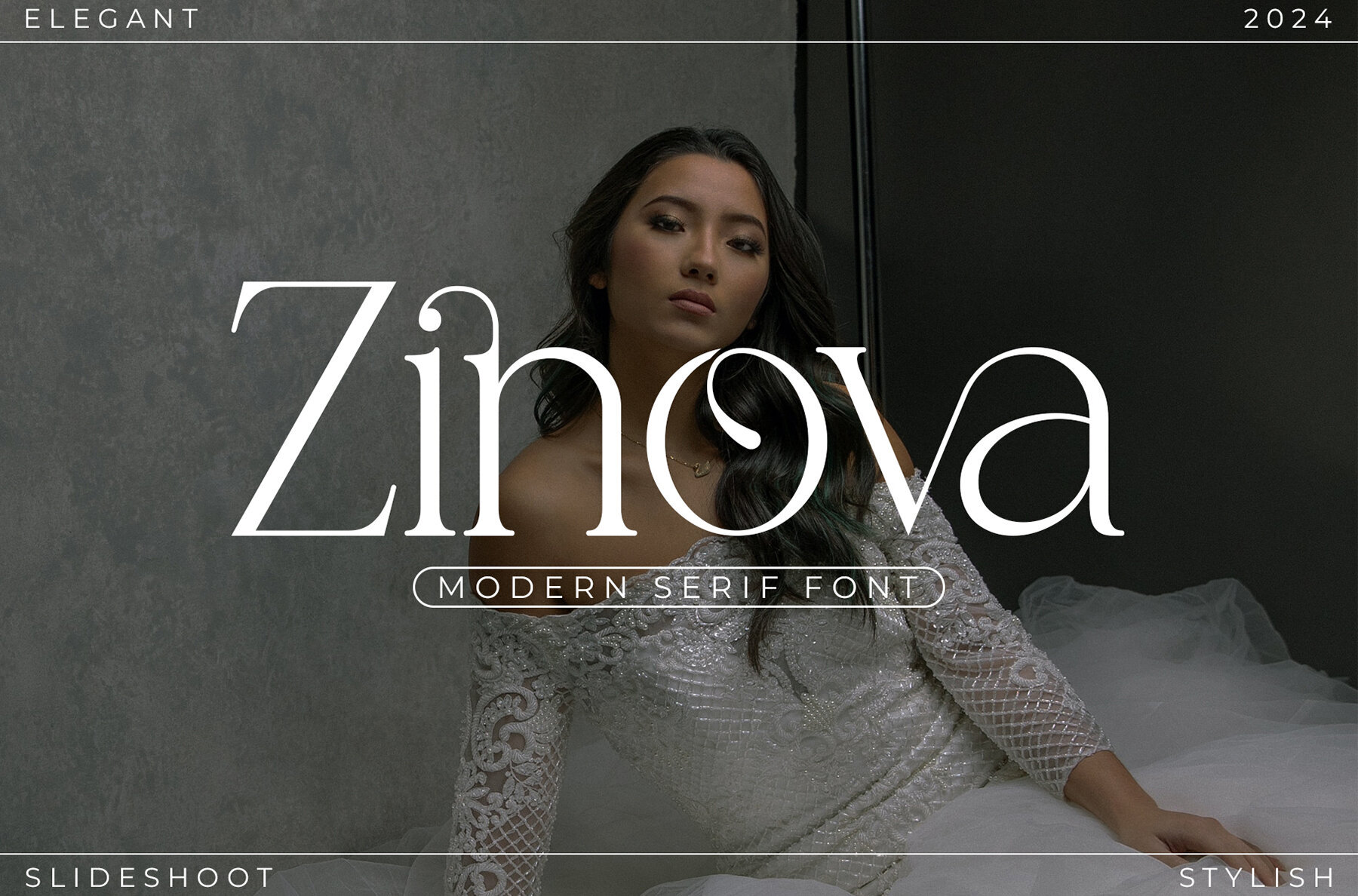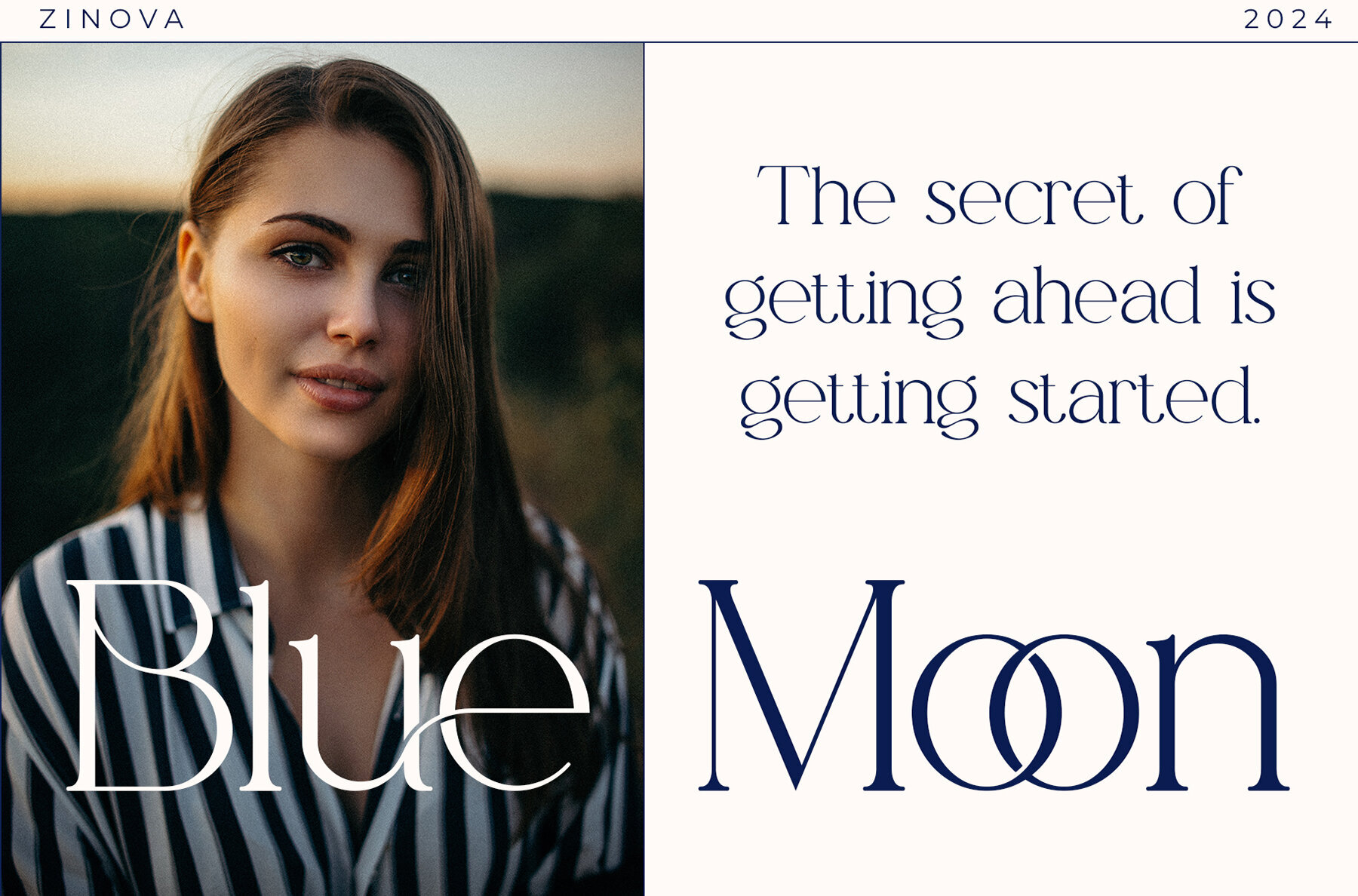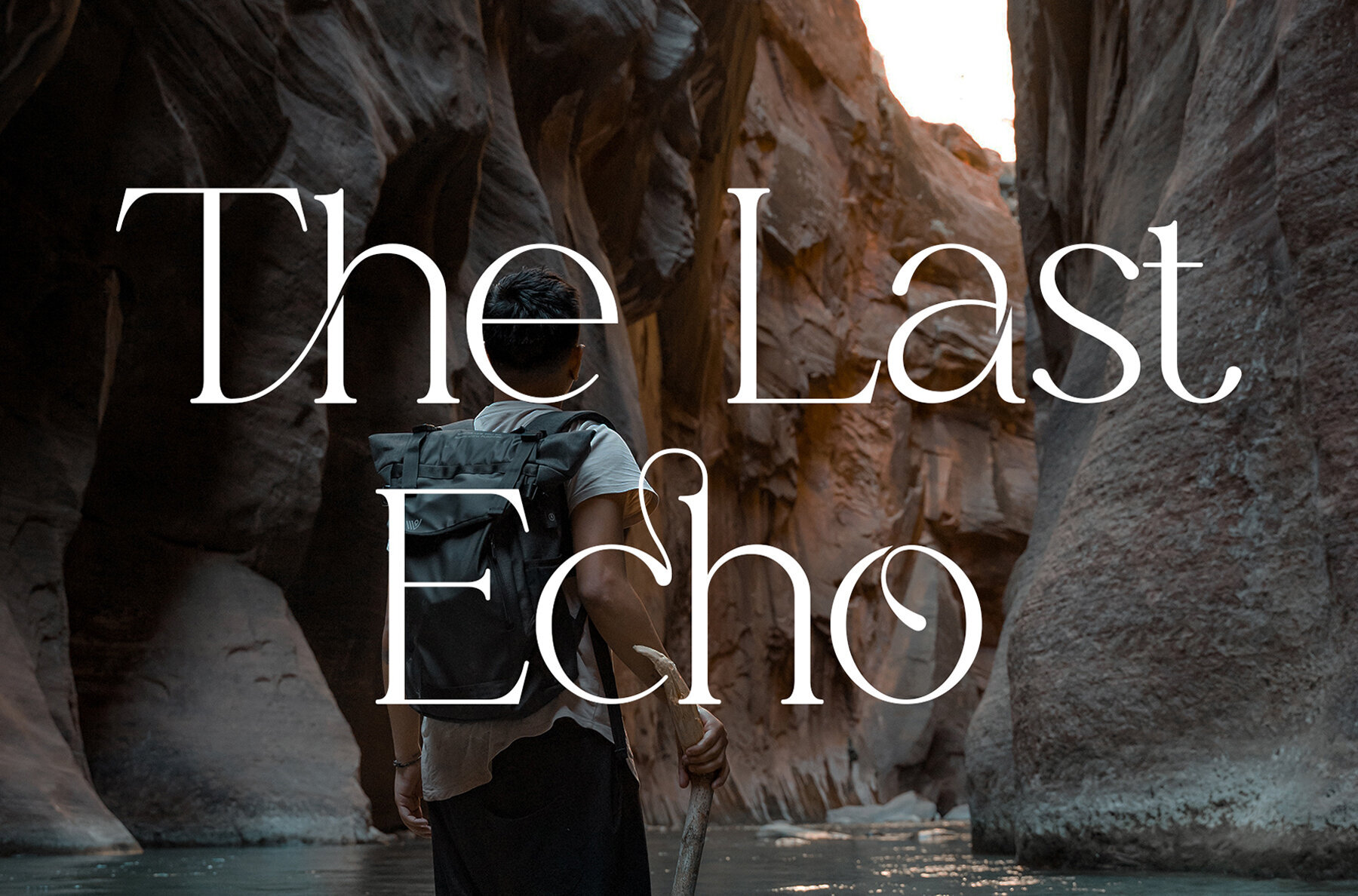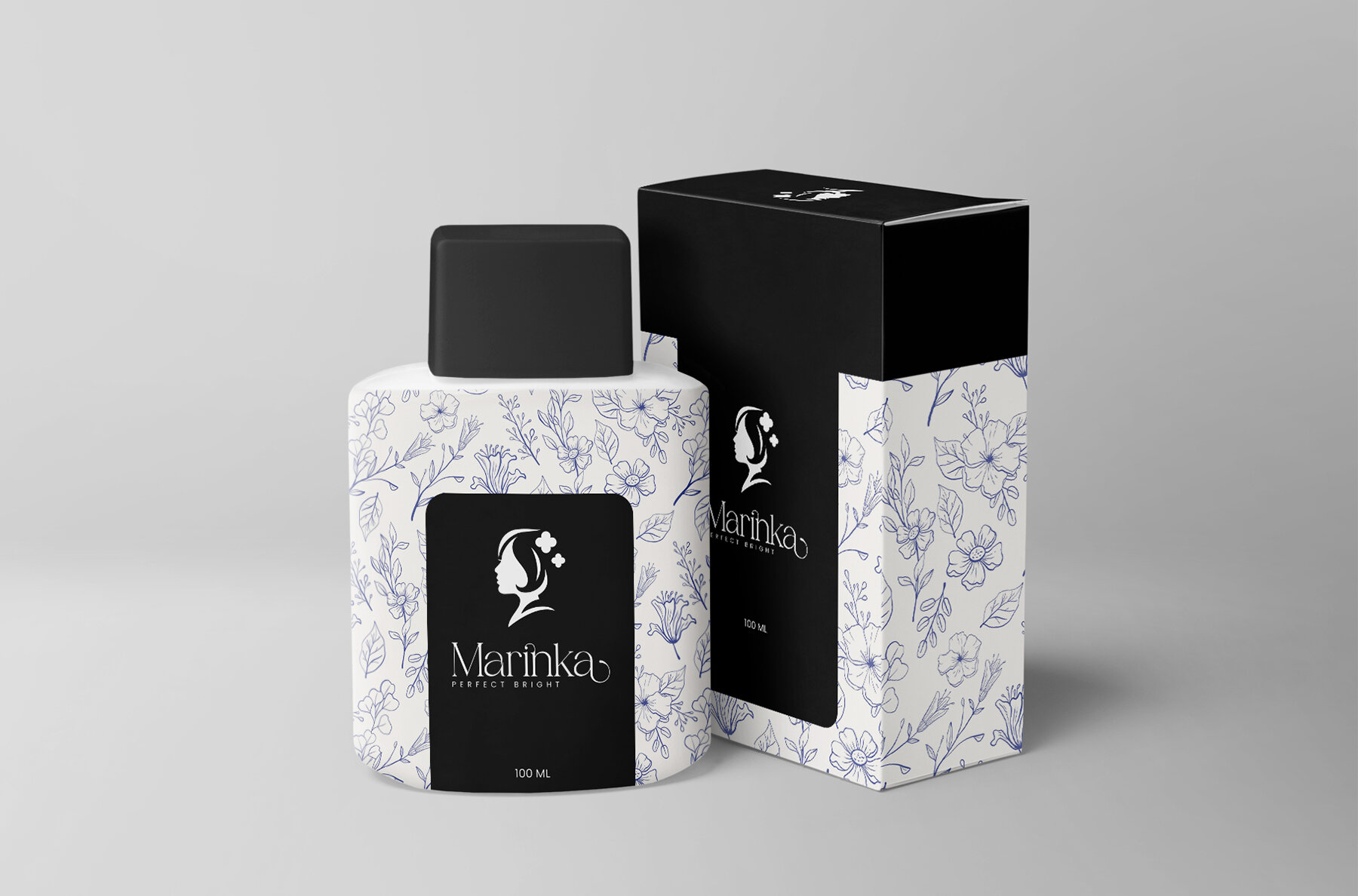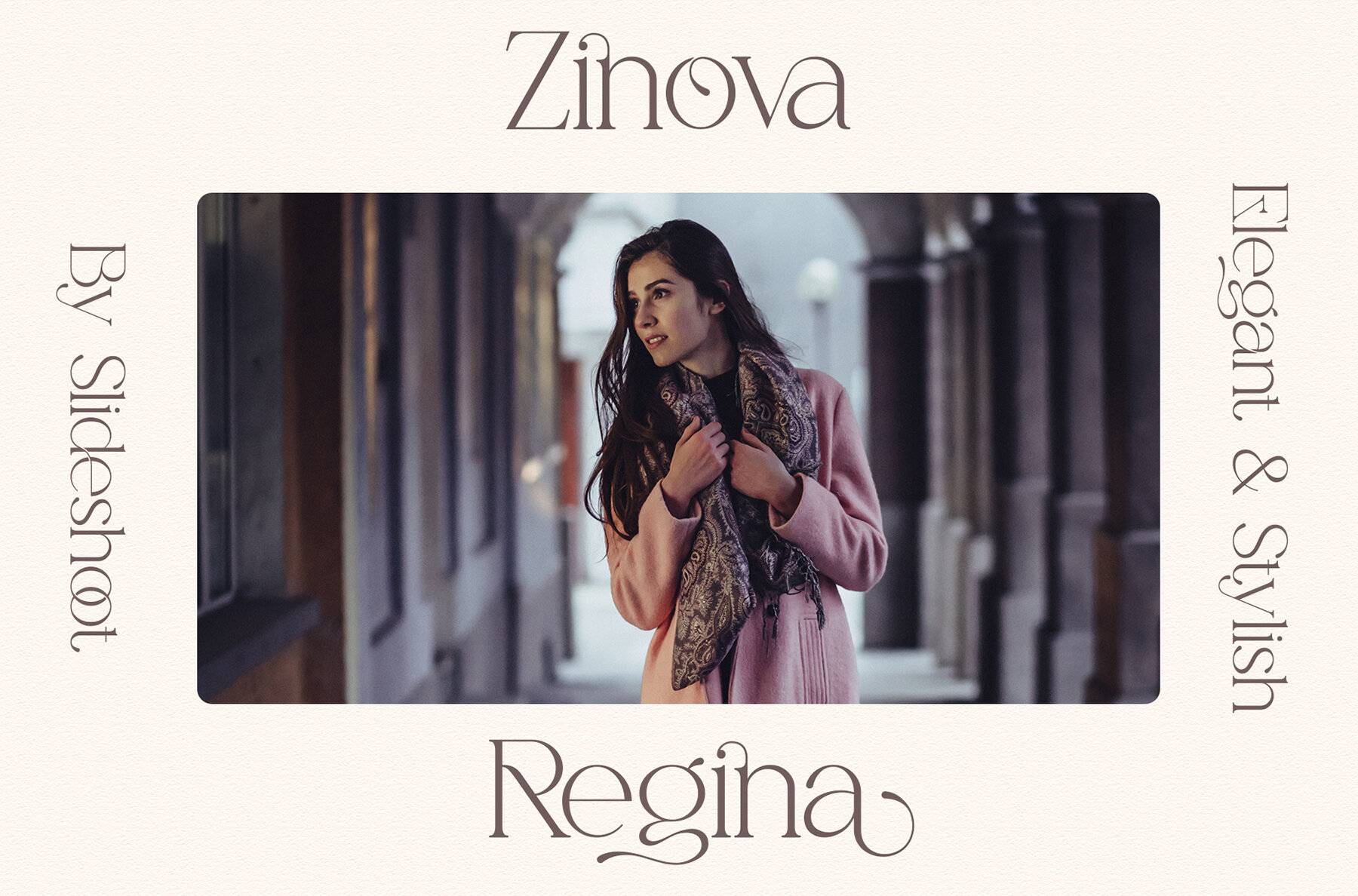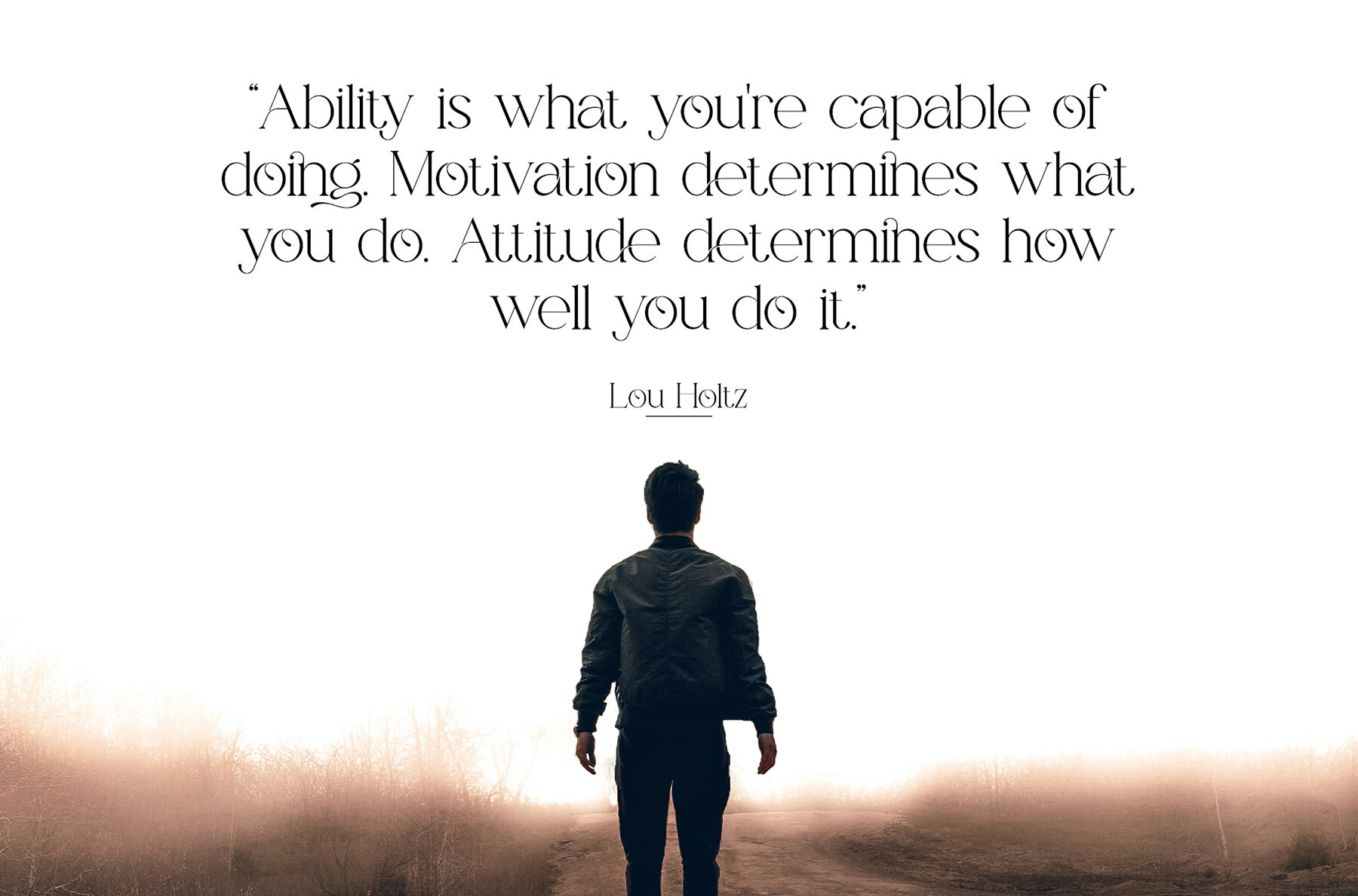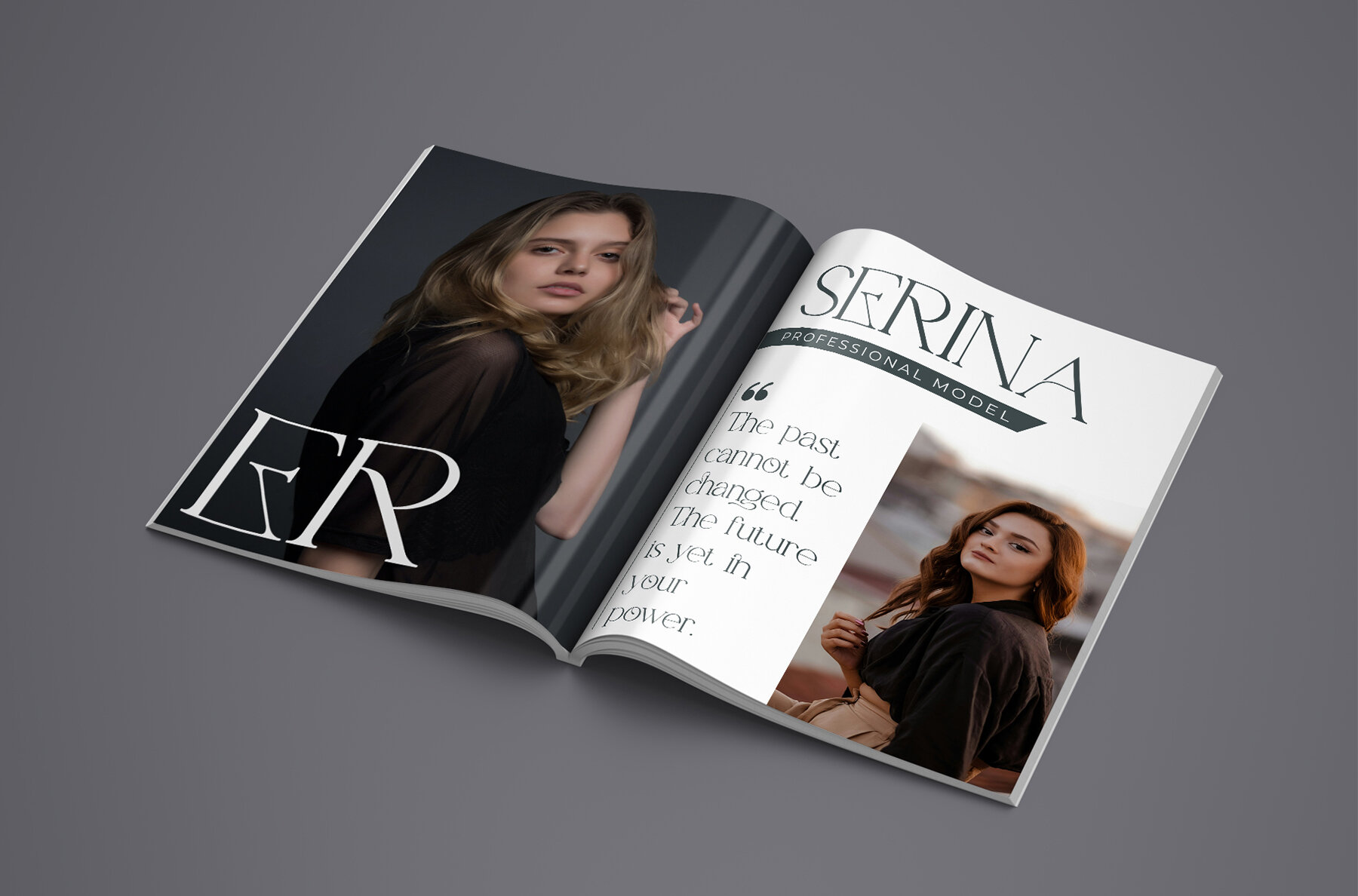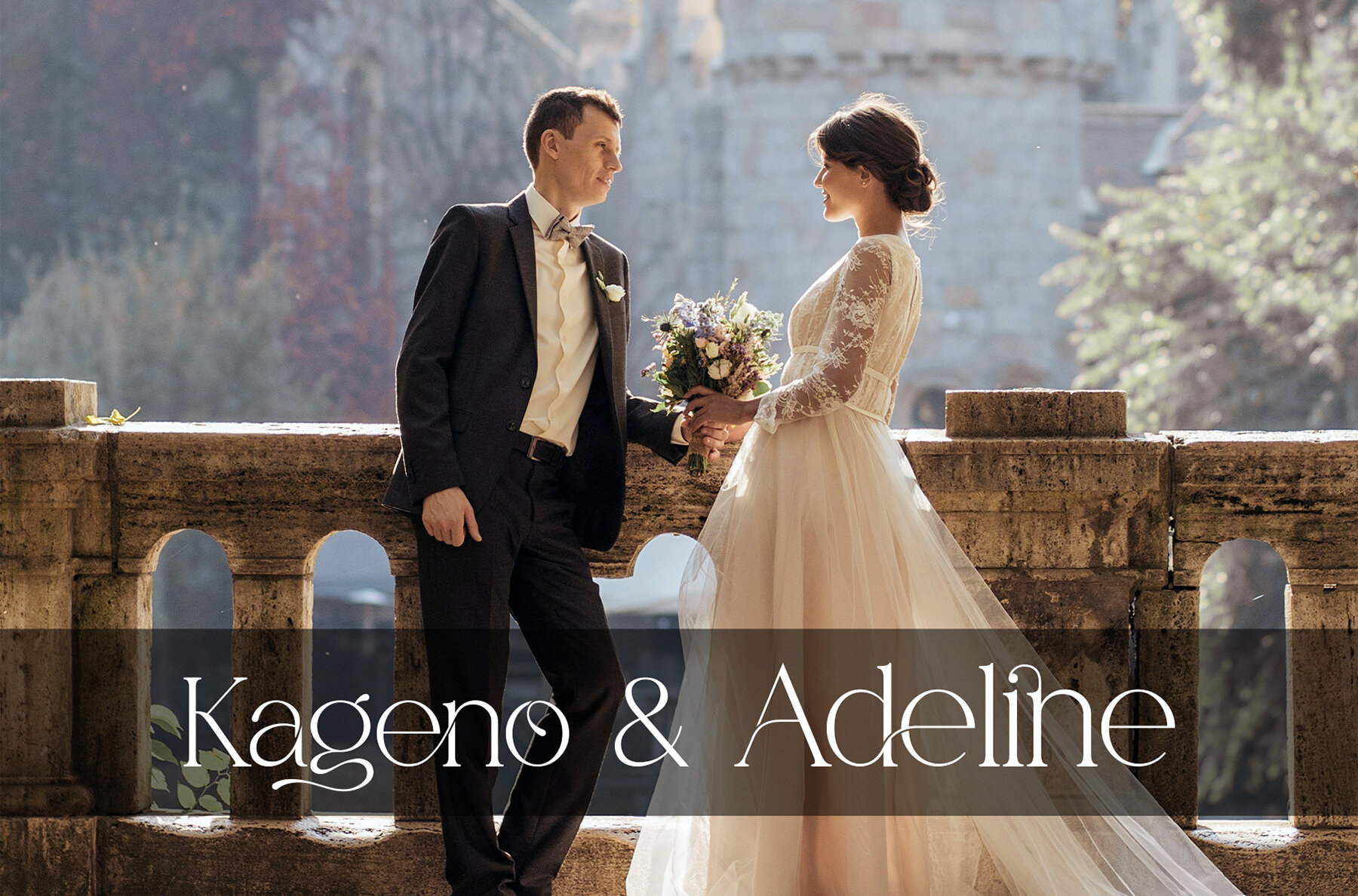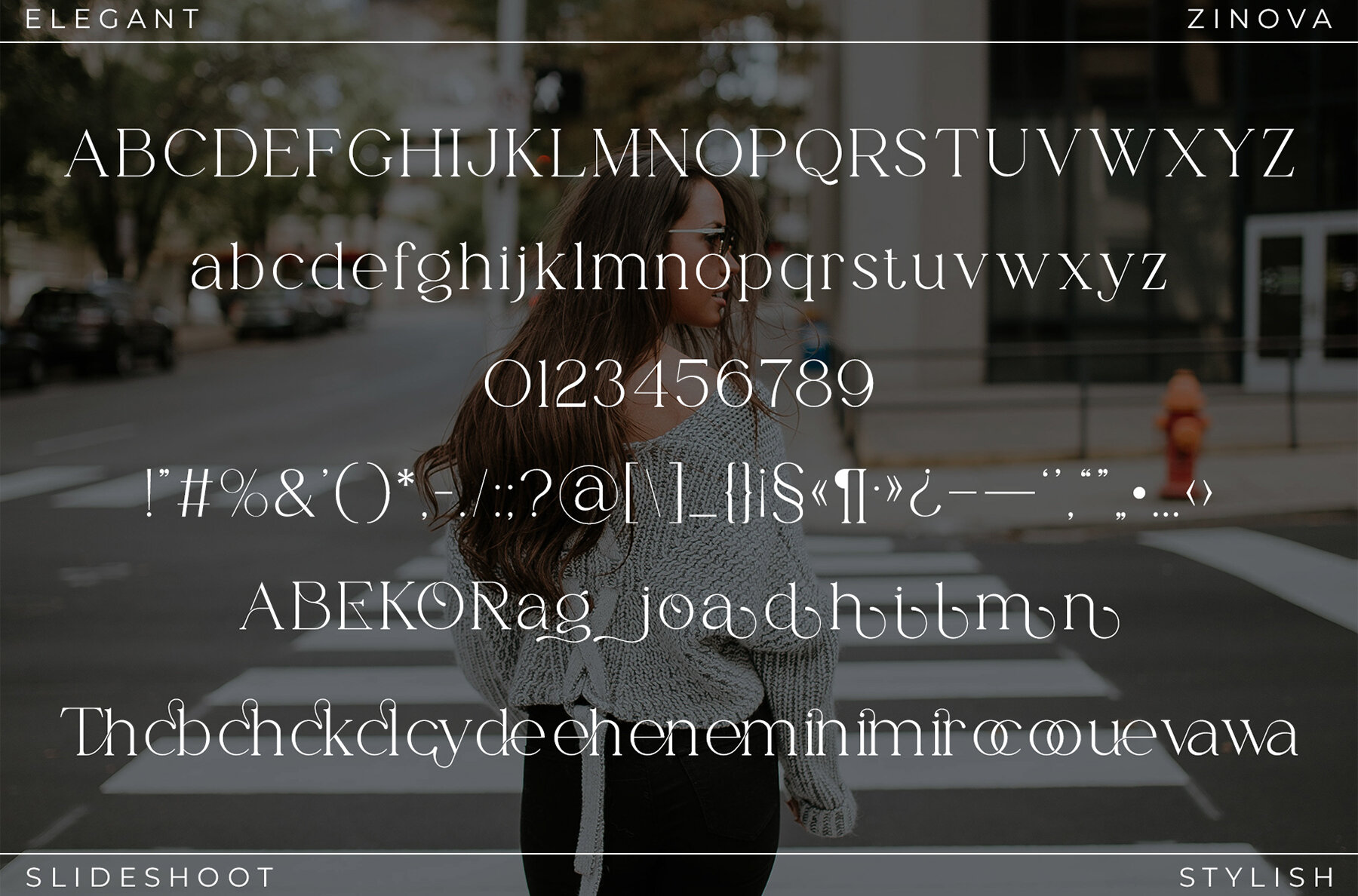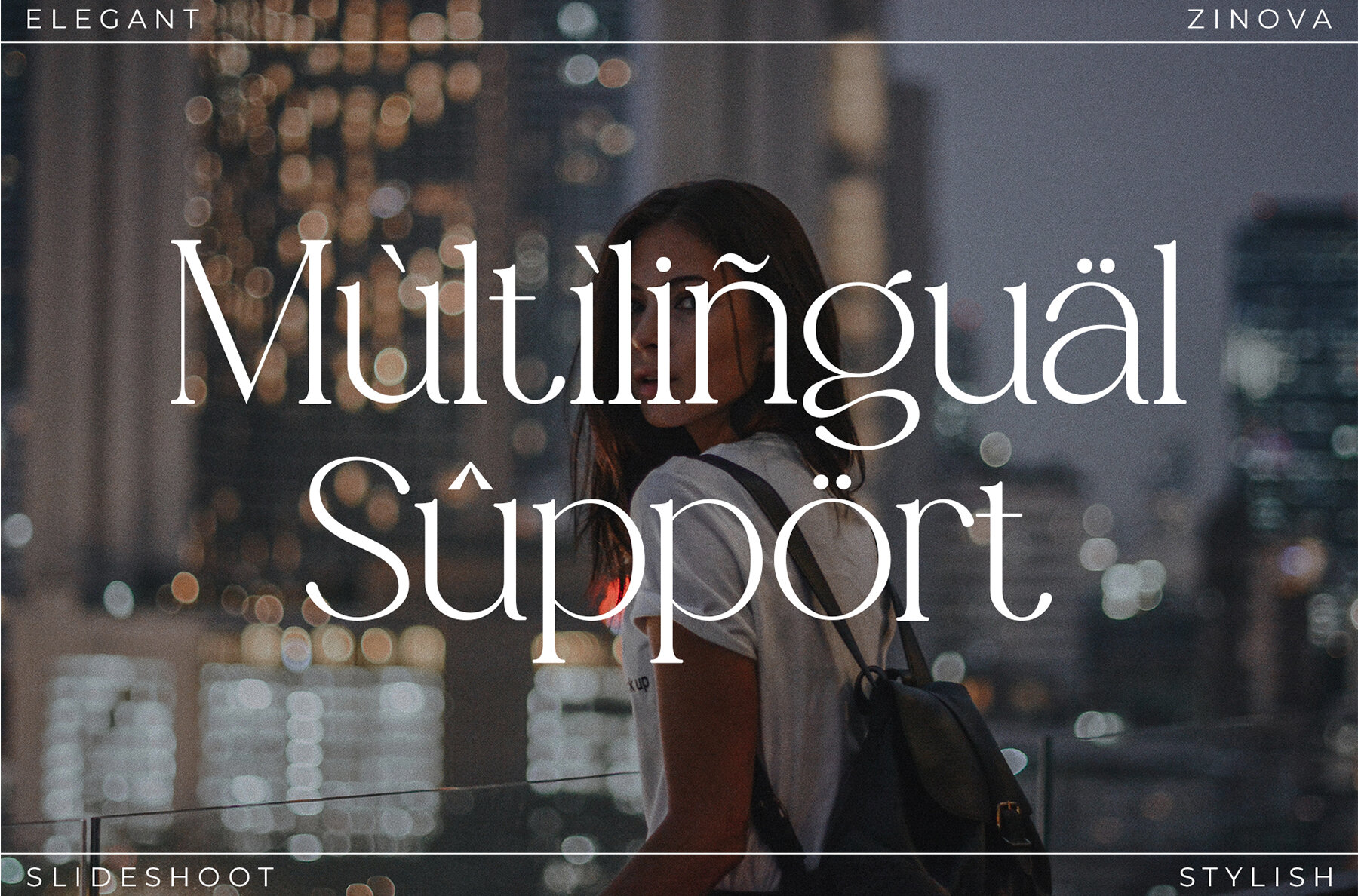
Zinova Font
Zinova Serif is a balanced and smooth serif font known for its elegance and style. It features beautiful character design, making it a suitable choice for various applications such as invitation cards, company logos, movie titles, business cards, book titles, brand names, and more. This sophisticated serif font offers stylish alternations and ligatures, serving as the perfect partner for any creative project.Zinova: Elegant and Stylish Serif Font